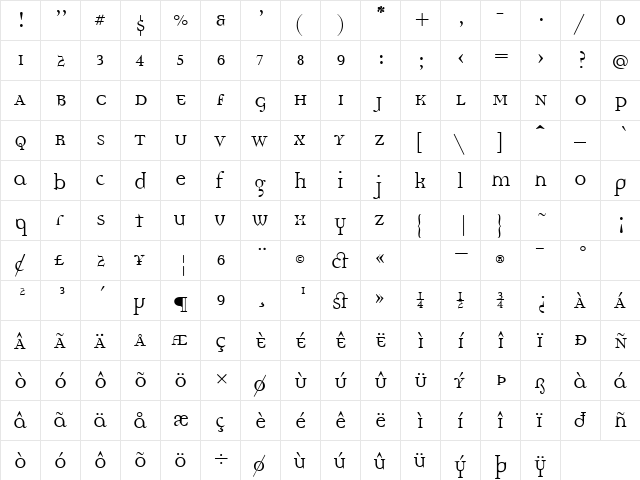
DemocraticaRegularLining Regular Font Preview
DemocraticaRegularLining Regular
DemocraticaRegularLining Regular Font Details
| Copyright | Copyright (C) 1993, Emigre Graphics; Designed by Miles Newlyn in 1992 |
Design Context for DemocraticaRegularLining Typeface
DemocraticaRegularLining offers clean, dependable letterforms without strong stylistic allegiance, making it a practical choice for designers who need flexibility.